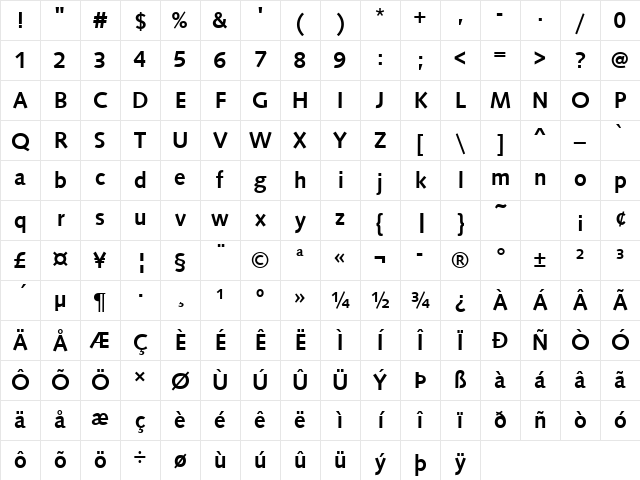
SyntaxDMed Regular
Design Context for SyntaxDMed
SyntaxDMed is a composed and adaptable typeface that performs quietly and consistently across a wide range of design contexts.
Pro Tip: Use SyntaxDMed in both headline and body roles to test its range before committing to a single application.